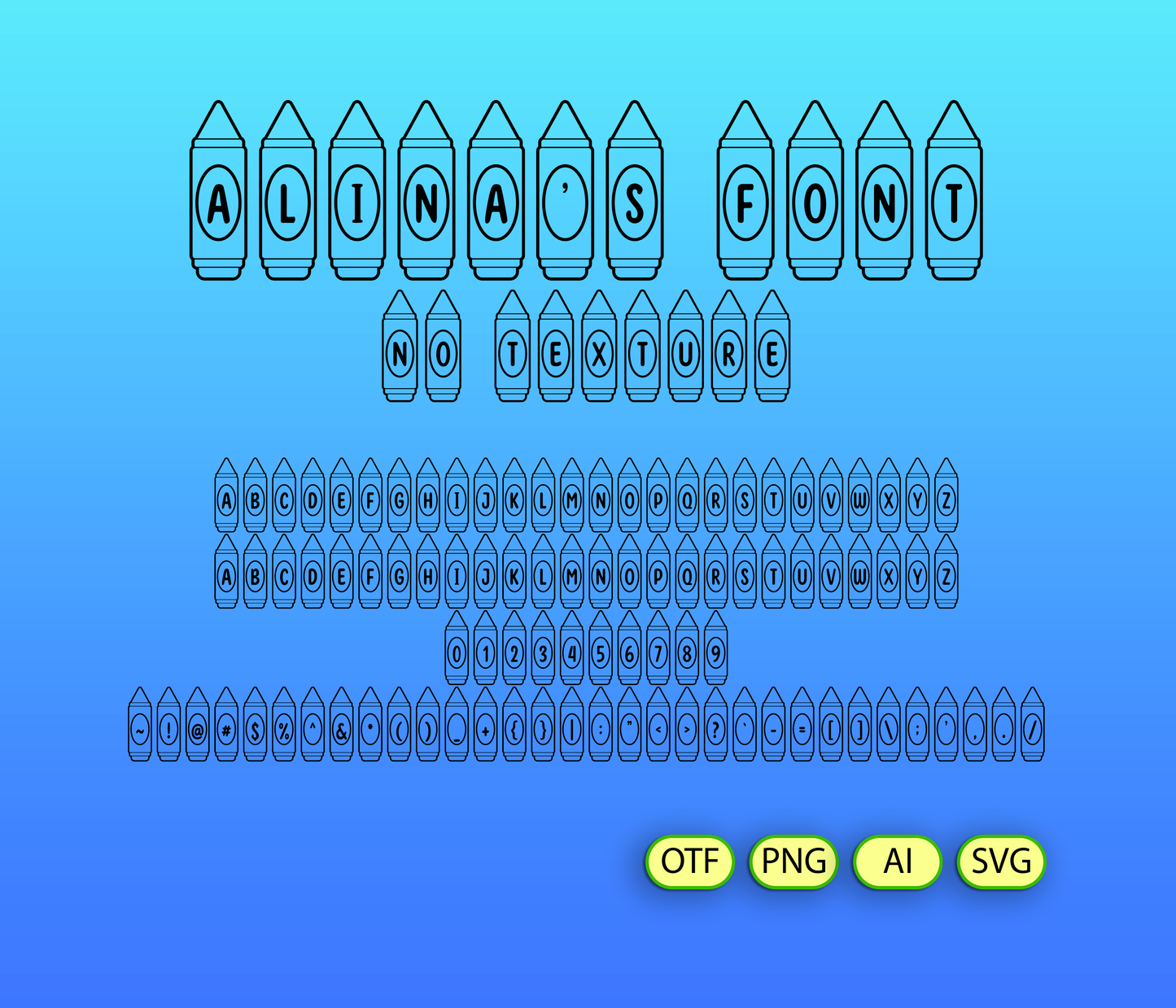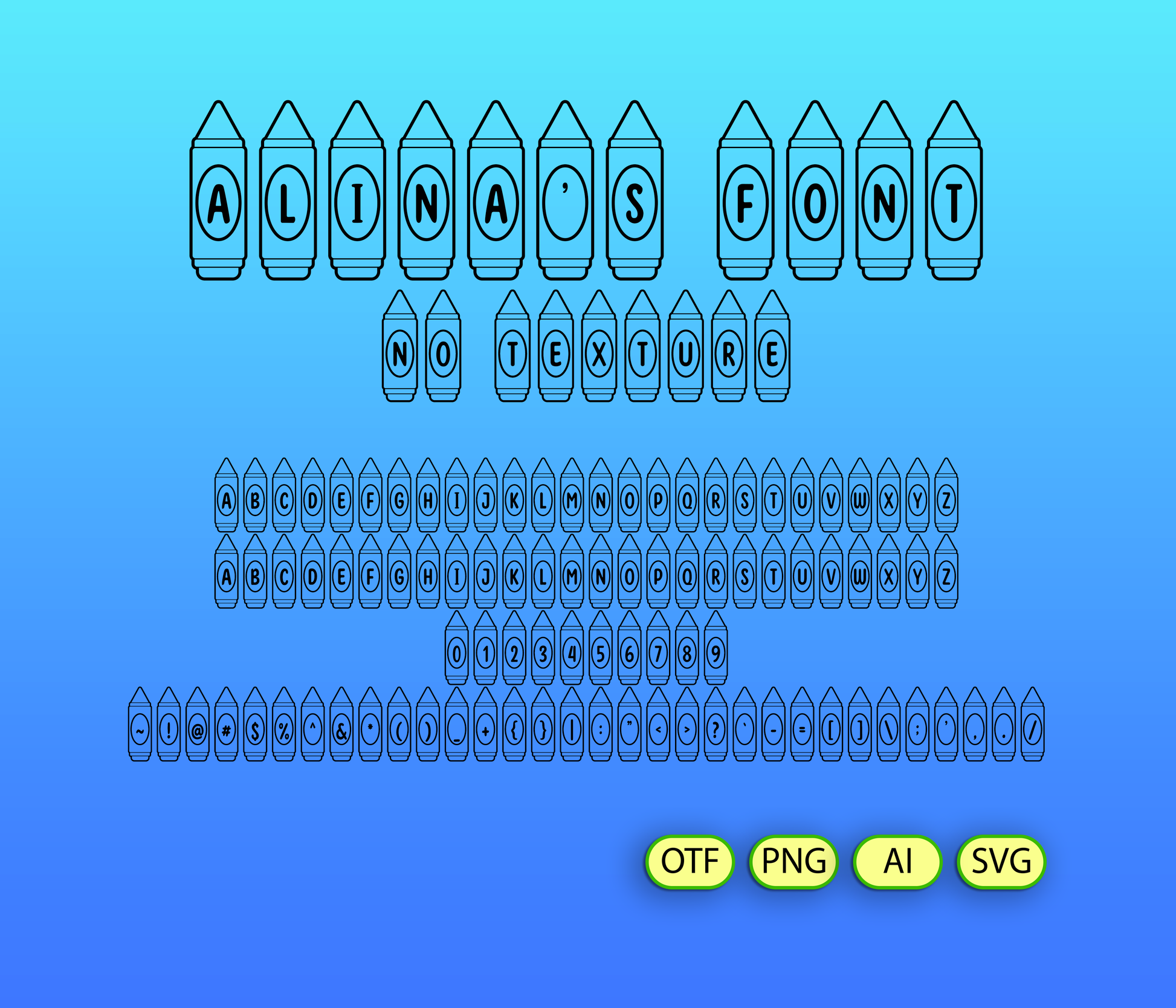
Back to School Font
Back to School Font: Celebrate the Season of Fresh Starts
As the summer sun begins to set, a familiar buzz fills the air—it's that time of year again when students of all ages prepare to head back to school. The anticipation of new classes, fresh notebooks, and the chance to reunite with friends is palpable. Our Back to School font collection is designed to capture the excitement, nostalgia, and energy of this special season. Whether you’re a teacher, student, or parent, this collection will transport you straight to the schoolyard, with fonts inspired by classic classroom elements like chalkboards, notebooks, and even the iconic letterman jackets.
Application and Customization
The Back to School font collection is as versatile as it is nostalgic. Whether you’re decorating a classroom, designing school-themed merchandise, or planning a back-to-school event, these fonts offer endless possibilities for customization. Here are some specific ways to use this collection:
The Back to School font is more than just a set of typefaces—it’s a celebration of the school year, capturing the excitement, creativity, and nostalgia that come with it. With its wide range of styles and versatile applications, this collection is perfect for anyone looking to add a touch of school spirit to their designs, whether for personal projects, classroom use, or commercial products.